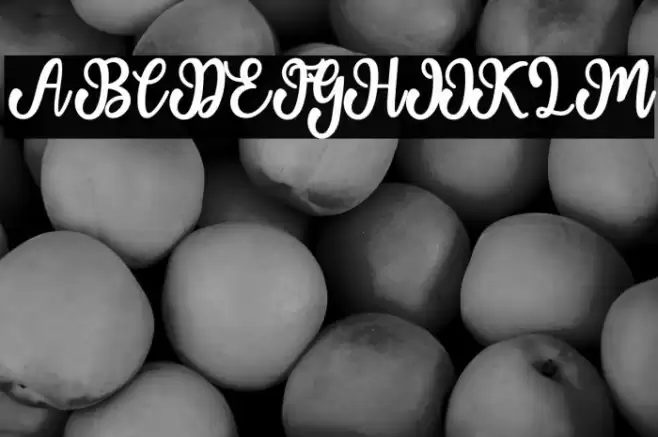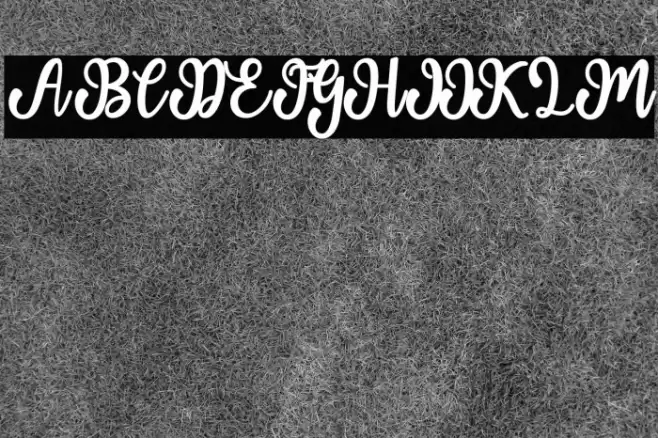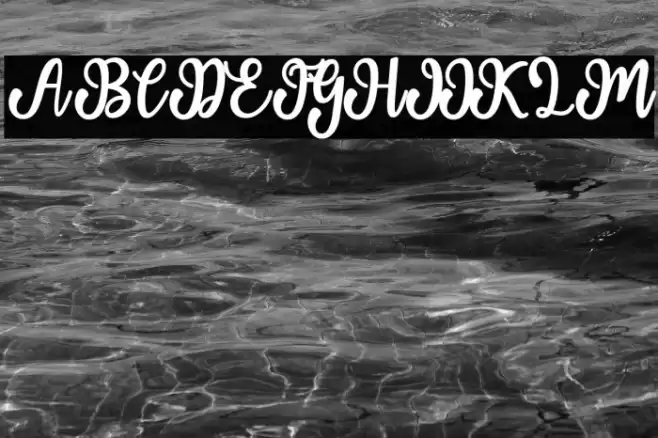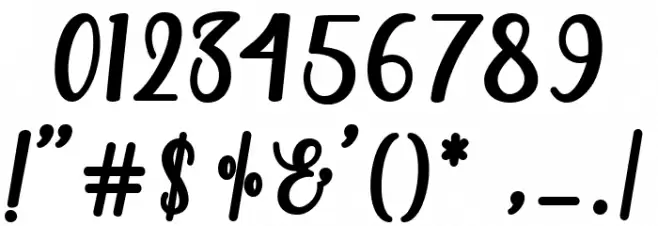
breather Font
breather Description
This font features a bold and expressive script style, characterized by its flowing, cursive letterforms that exude a sense of elegance and creativity. The uppercase letters are slightly more structured, maintaining a consistent height, while the lowercase letters exhibit a playful, handwritten quality with varying heights and dynamic strokes. The numbers and special characters maintain the same lively style, ensuring a cohesive look across all text. The font's bold weight and high contrast between thick and thin strokes make it highly legible and impactful, suitable for drawing attention to key elements in a design.
A bold, expressive script font with high contrast and flowing cursive letterforms from Uncategorized fonts.
- Proposed Projects: Ideal for branding, invitations, greeting cards, and any project that requires a touch of elegance and personality.
- Use Case: Logos, Headlines, Invitations